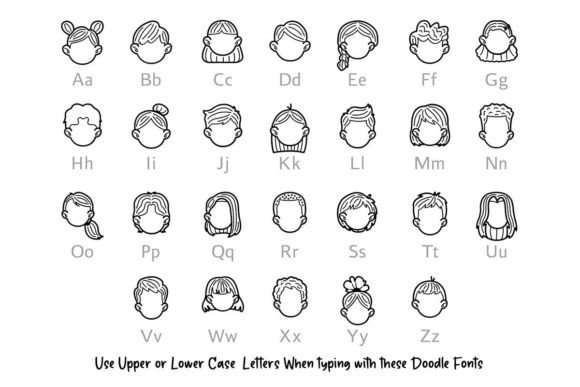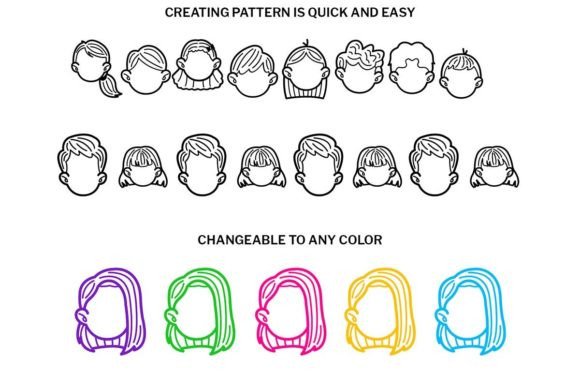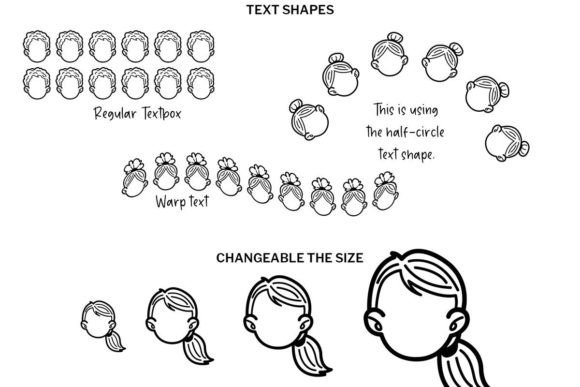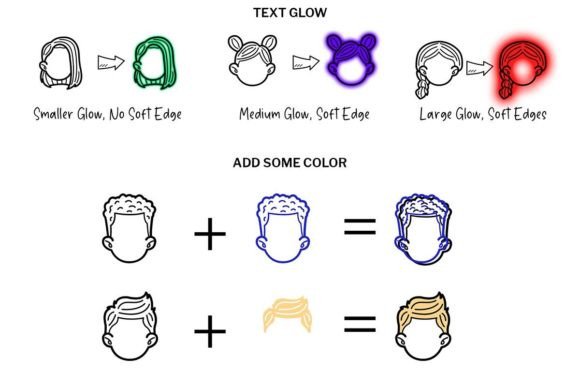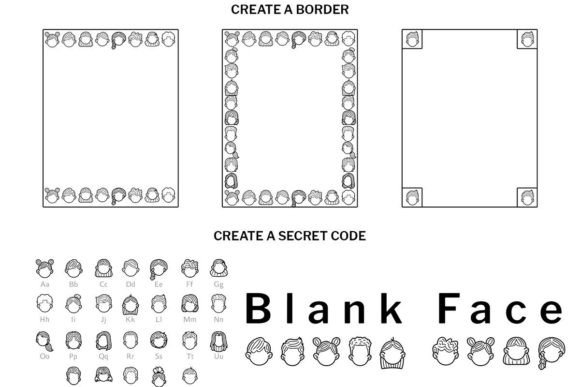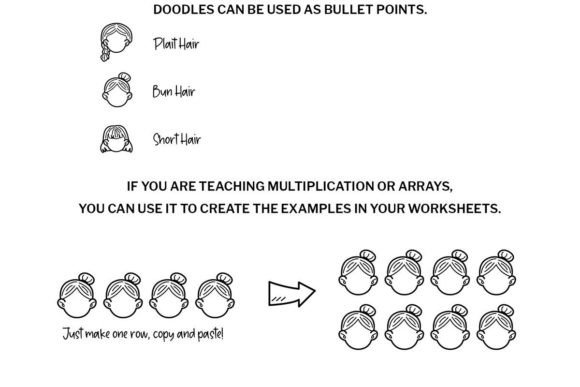
Introducing Blank Face Doodle Font: The Ultimate Dingbats Font for Creative Projects
Are you a designer, crafter, or DIY enthusiast looking for a fun and versatile font to elevate your creative projects? Look no further than the Blank Face Doodle Font! This adorable dingbats font is perfect for a wide range of applications, from planners and diaries to activity books, crafts, and designs.
What is Blank Face Doodle Font?
Blank Face Doodle Font is a unique and playful dingbats font that features a collection of cute and quirky doodle-style illustrations. The font consists of a range of blank face designs, each with its own distinct personality and charm. These delightful illustrations can be used to add a touch of whimsy and personality to any project.
What Makes Blank Face Doodle Font So Versatile?
The Blank Face Doodle Font is incredibly versatile, making it suitable for a wide range of creative projects. Here are just a few examples of how you can use this font:
- Planners and Diaries: Add a personal touch to your planners and diaries with the Blank Face Doodle Font. Use the illustrations to create custom headers, decorate your pages, or add visual interest to your layouts.
- Activity Books: Create engaging and interactive activity books for kids or adults with the Blank Face Doodle Font. Use the illustrations to design mazes, connect-the-dots, or other fun activities.
- Craft Projects: Add a touch of personality to your craft projects, such as scrapbooking, card making, or journaling, with the Blank Face Doodle Font.
- Designs: Use the font to create custom designs for social media graphics, blog posts, or website headers.
Features of Blank Face Doodle Font
The Blank Face Doodle Font has several features that make it a must-have for designers and crafters:
- Cute and Quirky Illustrations: The font features a range of adorable and playful illustrations that are sure to add a touch of personality to your projects.
- High-Quality Design: The font is designed with high-quality vectors, ensuring that your projects look professional and polished.
Tips for Using Blank Face Doodle Font
Here are a few tips for using the Blank Face Doodle Font in your projects:
- Experiment with Different Sizes: Try using the font in different sizes to create visual interest and add emphasis to your designs.
- Combine with Other Fonts: Combine the Blank Face Doodle Font with other fonts to create a unique and eye-catching design.
- Use in Color or Black and White: Use the font in color or black and white, depending on your design needs.
- Customize and Personalize: Customize and personalize the font to fit your brand or design style.
The Blank Face Doodle Font is a fun and versatile dingbats font that is perfect for designers, crafters, and DIY enthusiasts. With its cute and quirky illustrations, high-quality design, and ease of use, this font is sure to become a staple in your creative toolkit. Whether you’re working on a planner, diary, activity book, or craft project, the Blank Face Doodle Font is the perfect choice.